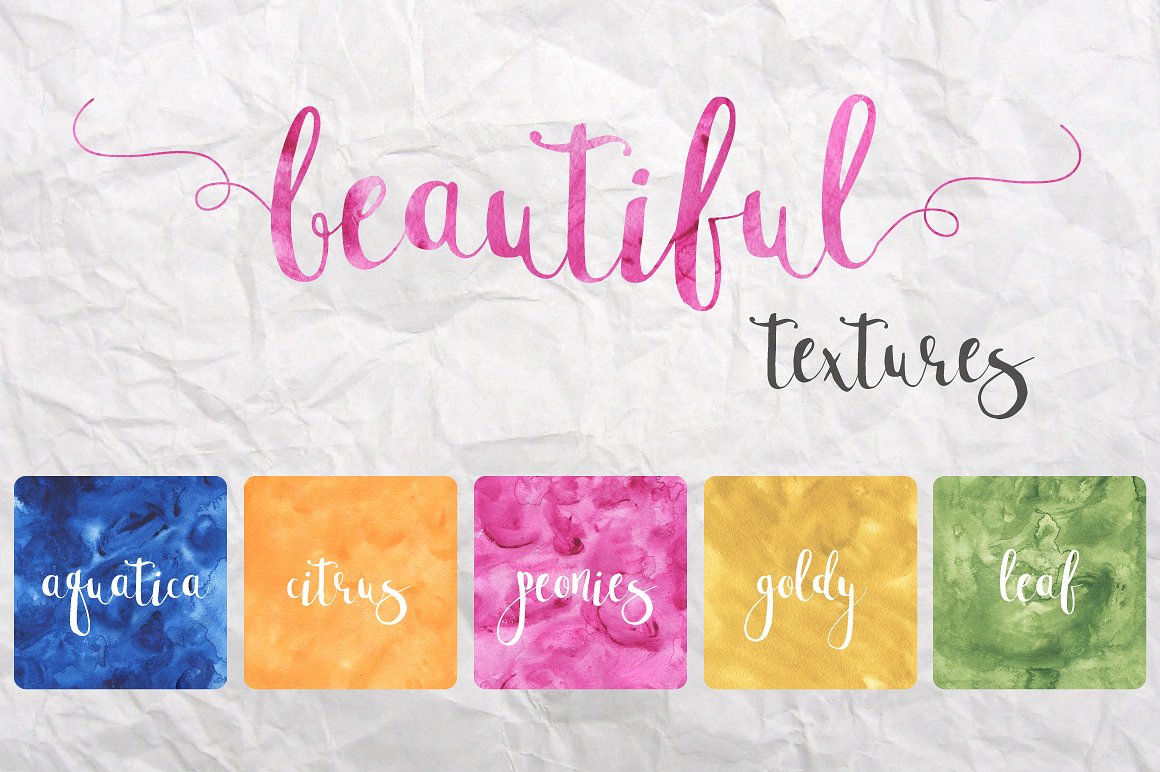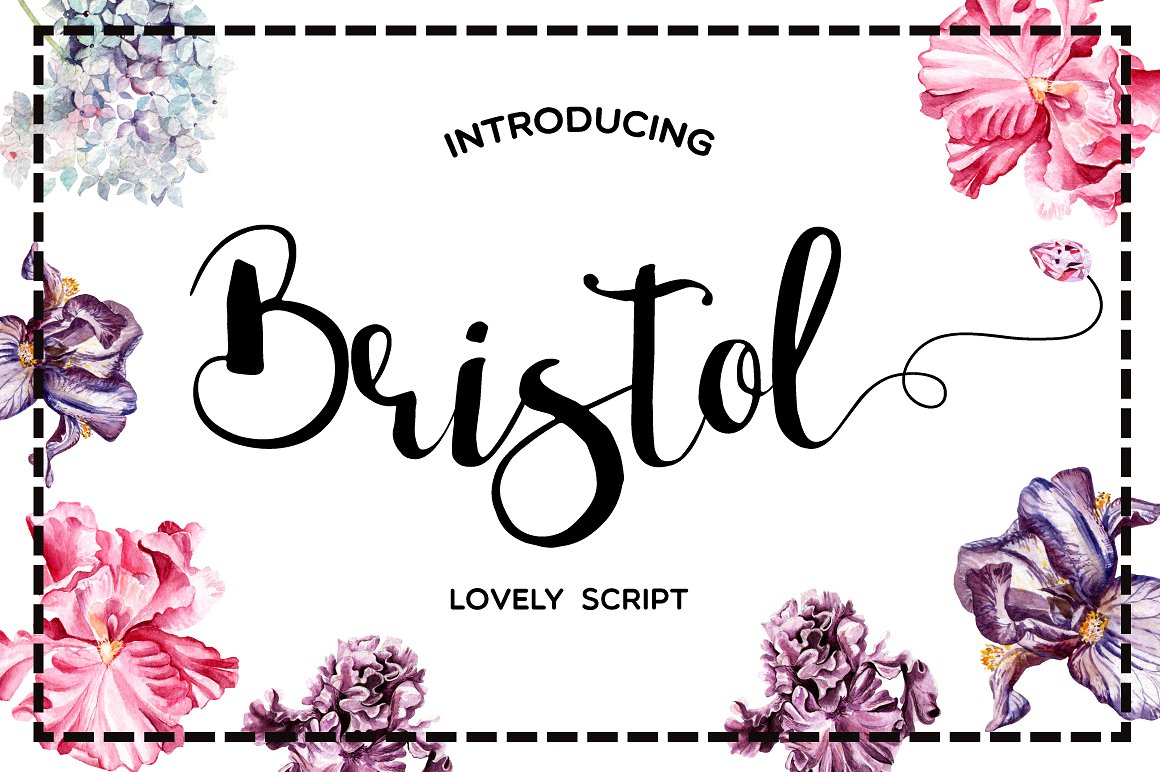
Bristol Script Font
This fonts are perfect for wedding invitation or postcard for your friend. Also with their help, you can create a logo or beautiful poster. Or just use for your small business.